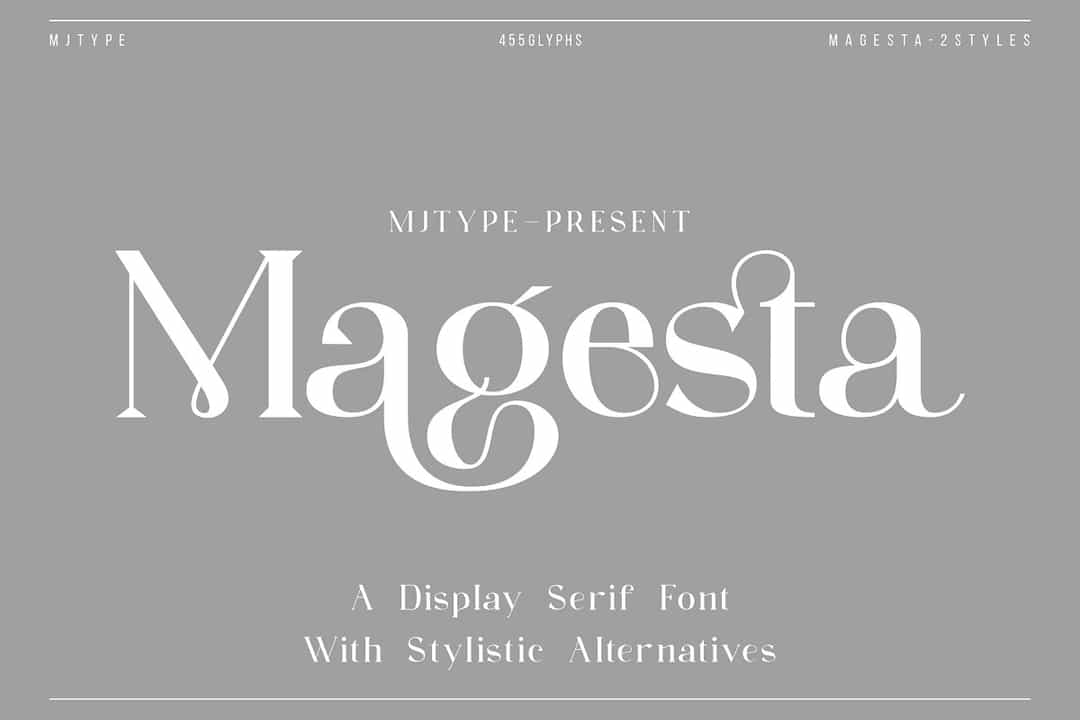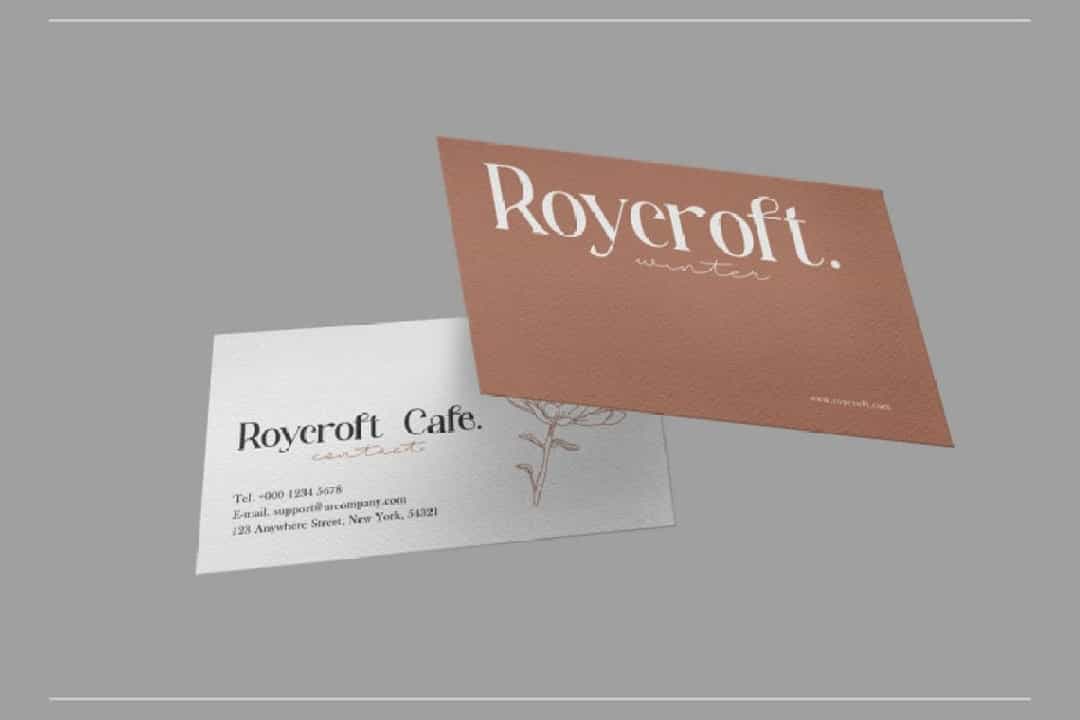
Discover Magesta Font, part of the Serif collection—a versatile and unique font perfect for adding a personal touch to your projects. Download it for free and enjoy crafting designs with style, from invitations to social media posts. This font is available exclusively for personal use, giving you the freedom to create without limits. Unlock your creativity with Magesta Font today!
Magesta is serif typeface was inspired by Chopper font which was released on August 9, 2021. Magesta font supports multiple languages with unique uppercase and lowercase ligatures for elegant logotype designs; use this font for making elegant headlines for campaigns or designs of posters, T-shirts or business cards for your next campaign!